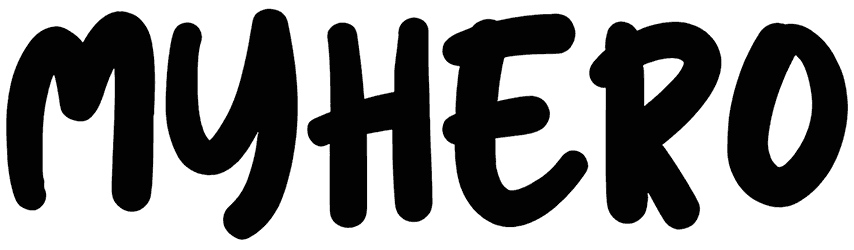
Myhero Font
Myhero is one of those prominent handwritten fonts that, while maintaining the main features, can also keep a sense of joy and excitement in the design. This makes it a good choice for entertainment logos and children’s book covers.
The human nature sleeping inside this script font establishes effective communication with the audience and affects the depth of feelings. That’s why the lack of small letters in this font is not felt and can meet your design needs.